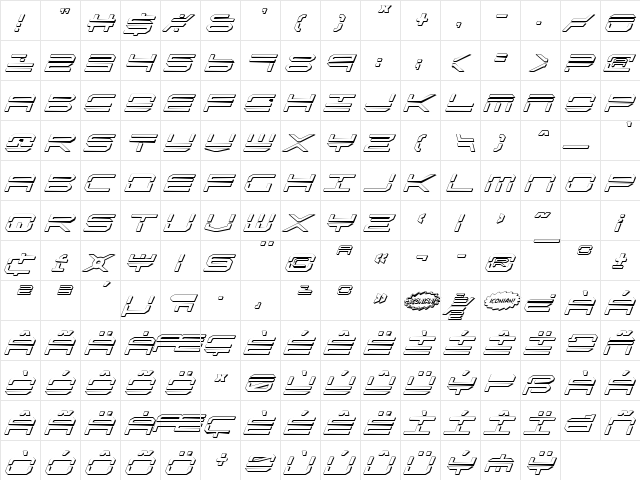
QuickStrike Shadow Italic Shadow Italic
Design Context for QuickStrike Shadow Italic Typeface
QuickStrike Shadow Italic is built around its visual character rather than neutral utility — its distinctive forms are designed to make an impression at display sizes. Its italic angle brings a sense of urgency and motion to the letterforms.
Font Pairing: Pair with a clean neutral sans-serif for body copy to let QuickStrike Shadow Italic's character lead without overwhelming the composition.
Pro Tip: Treat QuickStrike Shadow Italic as the centrepiece of your typographic hierarchy. One strong heading set in a decorative face can carry an entire layout.